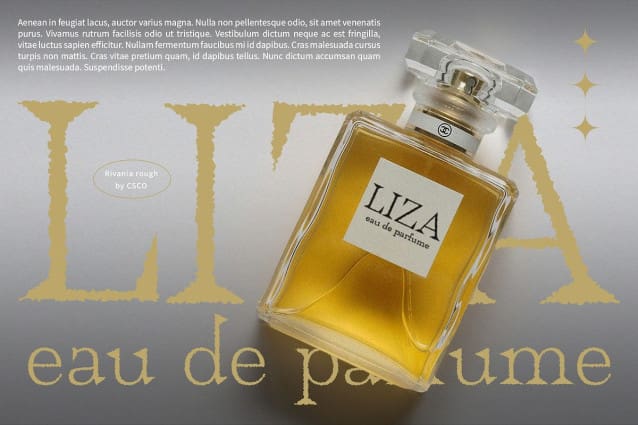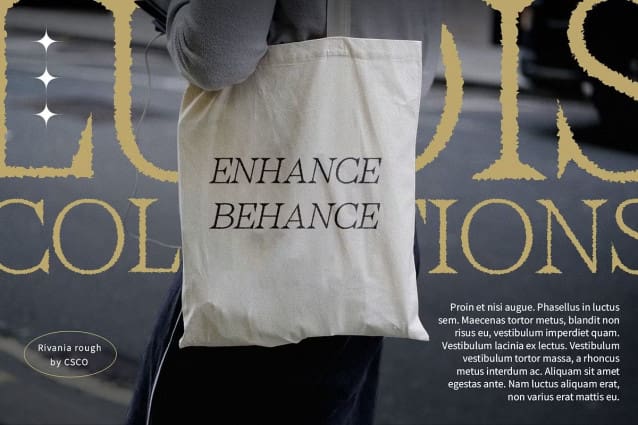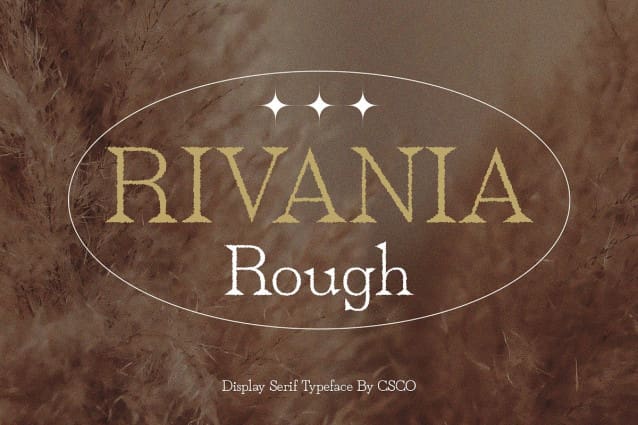
Rivania Rough Font
Rivania Rough Font is a modern serif font with a contemporary style, ensuring every design remains elegantly modern with a touch of roughness. Its unique design adds a sophisticated edge to your projects, making them stand out with a blend of modernity and raw charm.
Ideal for Displays Designed to make an impact, Rivania Rough is perfect for headlines, banners, and other display purposes. Its contemporary yet rough aesthetic ensures that your message is both seen and remembered.
Versatile and Stylish Despite its rough touch, Rivania Rough is versatile and stylish. Its serif font style makes it suitable for a wide range of projects, from branding to editorial design, where a font with character and charm is essential for making a statement.
Perfect for Adding a Contemporary Touch Rivania Rough is ideal for projects that require a font with a contemporary touch. Whether you’re designing a poster, logo, or website, this font will undoubtedly add a unique and memorable element to your designs.